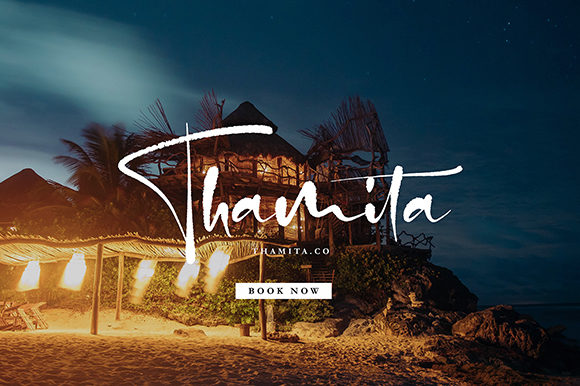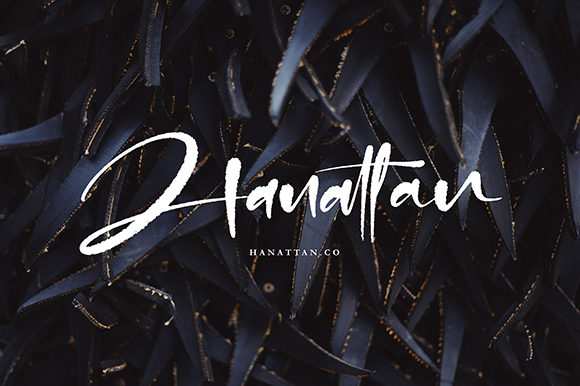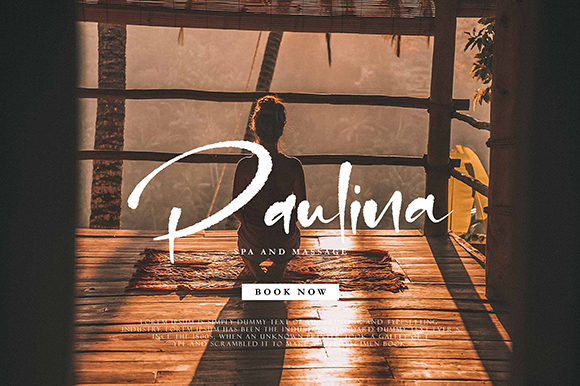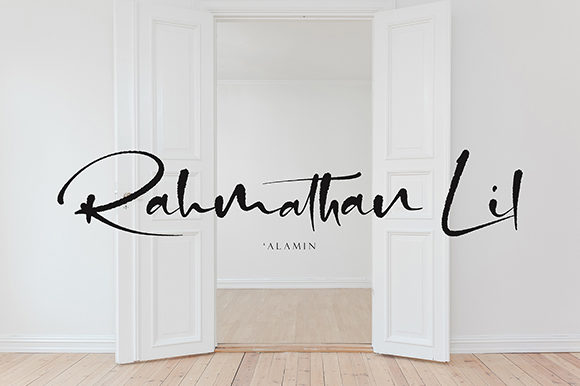
Dontha Tethaki Font
About Dontha Tethaki Font
Dontha Tethaki is a lovely and bold handwritten font with a contemporary twist. Get inspired by its playful, yet sophisticated charm.